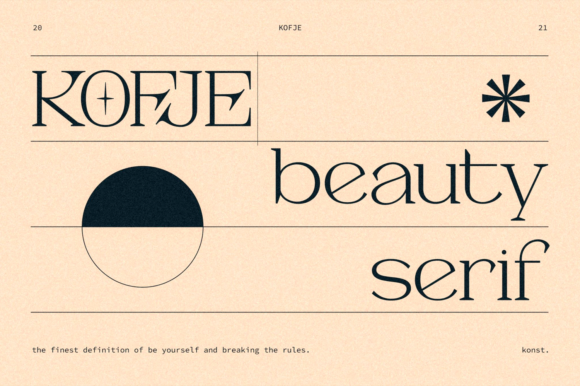
Meet Kofje - the sophisticated serif font that exudes grace and allure in every letterform. Its timeless beauty adds a touch of elegance and refinement to any design, making it the perfect choice for those seeking to create logos, branding materials, and captivating text arrangements.
Immerse yourself in a world of creative possibilities as you explore the depths of Kofje's versatile character. From classic serif strokes to unique flourishes, each glyph is meticulously crafted to evoke a sense of timeless sophistication. Kofje's distinct personality shines through in every design, adding a touch of individuality and charm.
Unleash your imagination and let Kofje's elegant curves guide you towards extraordinary design outcomes. Whether you're crafting a stunning logo, designing an eye-catching poster, or creating a captivating website, Kofje will elevate your work to new heights of visual appeal. Its versatility knows no bounds, making it the perfect companion for a wide range of design projects.
Join the ranks of discerning designers who have chosen Kofje as their font of choice. Experience the transformative power of its timeless aesthetics as you bring your creative visions to life. With Kofje at your fingertips, the possibilities are endless.